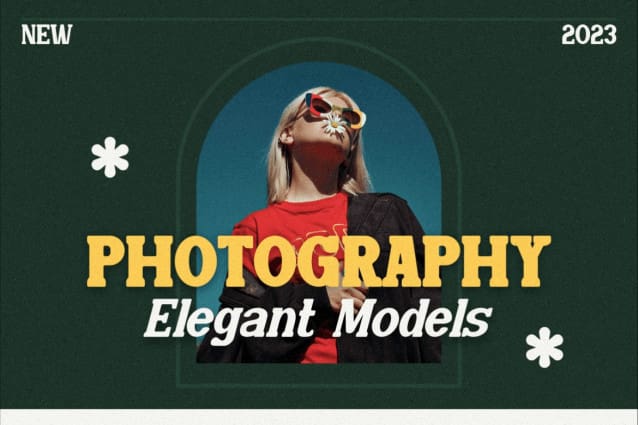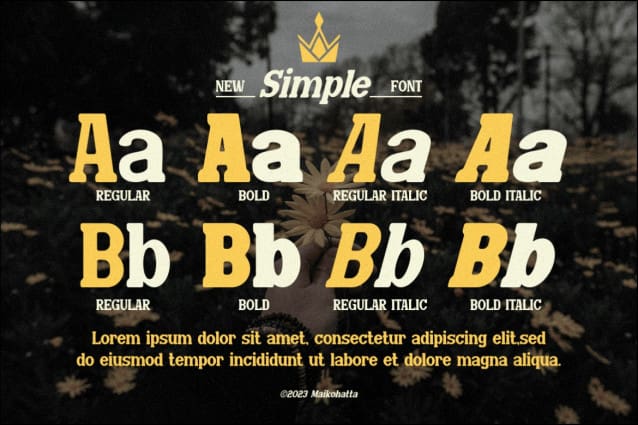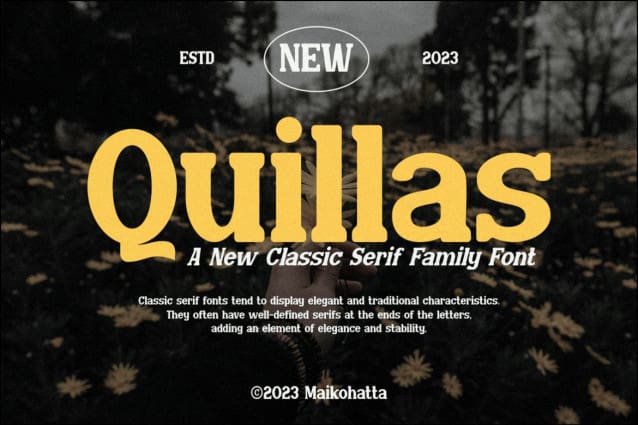
Quillas Font
Quillas Font – Classic Serif Family Font. This font has a series of small decorative projections called serifs at the end of its characters. Serifs give a more formal, classic, and easy-to-read look to printed text. Serif fonts are often used in formal documents, books and printed publications because of their good readability in small text sizes